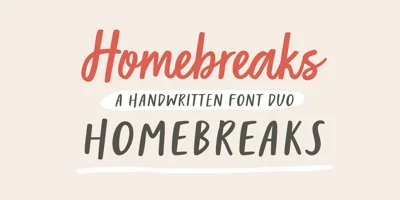
Homebreaks Font
Homebreaks Font is perfect for vacation rental websites, travel agency branding, hospitality marketing, hotel logos, tourism campaigns, retreat center signage, and leisure industry publications. This welcoming typeface creates an immediate sense of comfort and relaxation for any design project focused on getaways and peaceful experiences.
What makes Homebreaks Font exciting is its unique ability to evoke the feeling of perfect vacation moments and cozy retreats. The font features relaxed letterforms with gentle curves and friendly proportions that instantly communicate comfort and hospitality. Its approachable character makes audiences feel welcome and eager to escape their daily routines, while maintaining professional credibility for established travel brands.
The Homebreaks Font family includes multiple weights from light to bold, complete with complementary italic styles and casual script variations. The comprehensive character set offers travel-themed ornaments, decorative ligatures, international symbols, and hospitality-focused design elements. Advanced OpenType features provide flexibility for multilingual tourism marketing and global vacation rental platforms.
Whether you're developing travel brand identities, creating vacation marketing materials, or designing hospitality experiences, Homebreaks Font provides exceptional warmth and versatility. This inviting typeface transforms ordinary text into compelling vacation invitations that inspire wanderlust and relaxation while establishing trust and reliability in the competitive travel and hospitality marketplace.